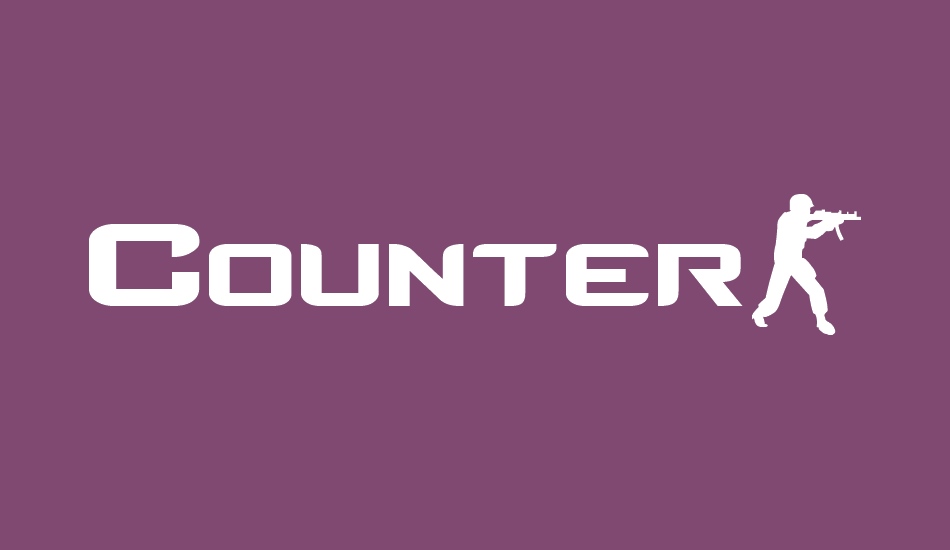
Font Counter Strike. Counter strike font is a replica font created by sojo based on the counter strike logo. It is a free font.
It is a free font. Counter strike font is a replica font created by sojo based on the counter strike logo.